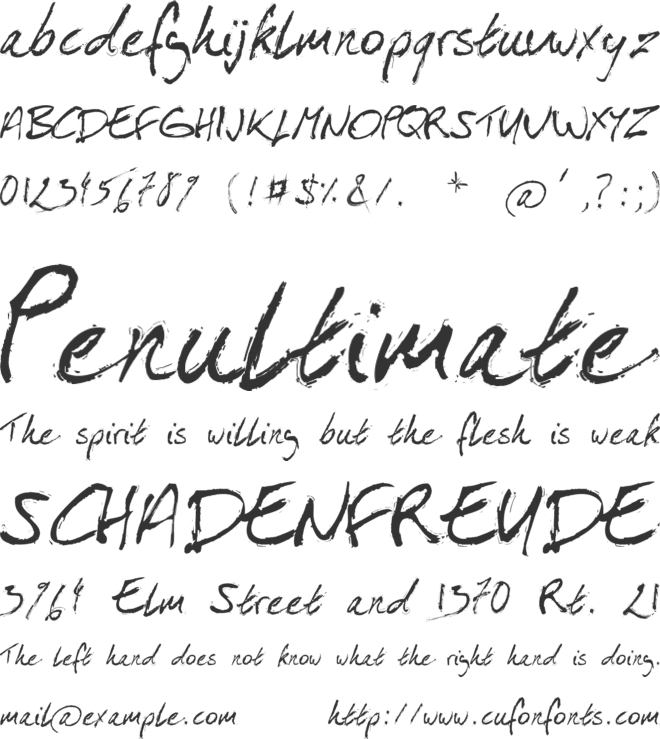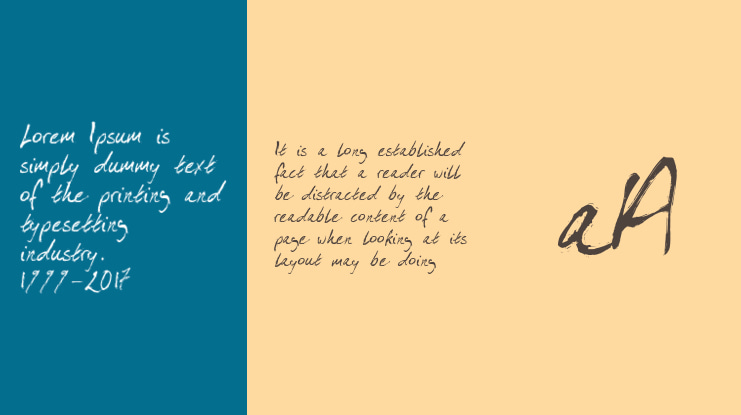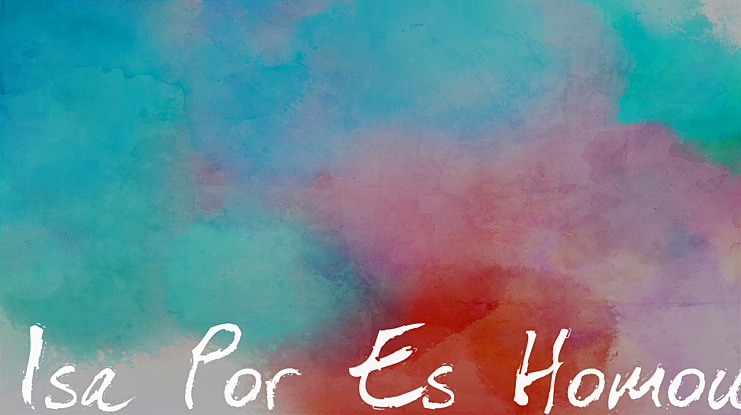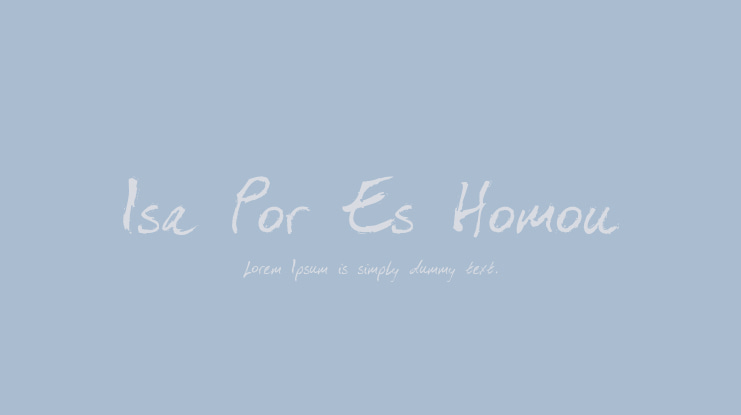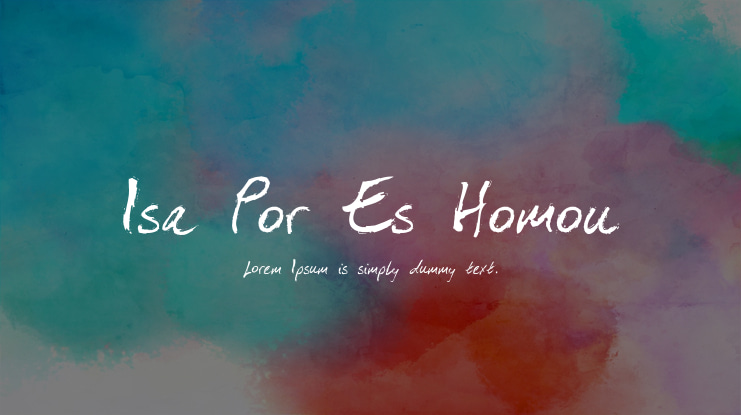
Isa Por Es Homou Font
ISA POR ES HOMOU is a handwritten font in grunge style. The name comes from „The Funeral Sermon and Prayer which is the oldest known and surviving contiguous Hungarian text, written by one scribal hand in the Latin script and dating to 1192-1195. It is found on f.154a of the Codex Pray”. http://en.wikipedia.org/wiki/Funeral_Sermon_and_Prayer